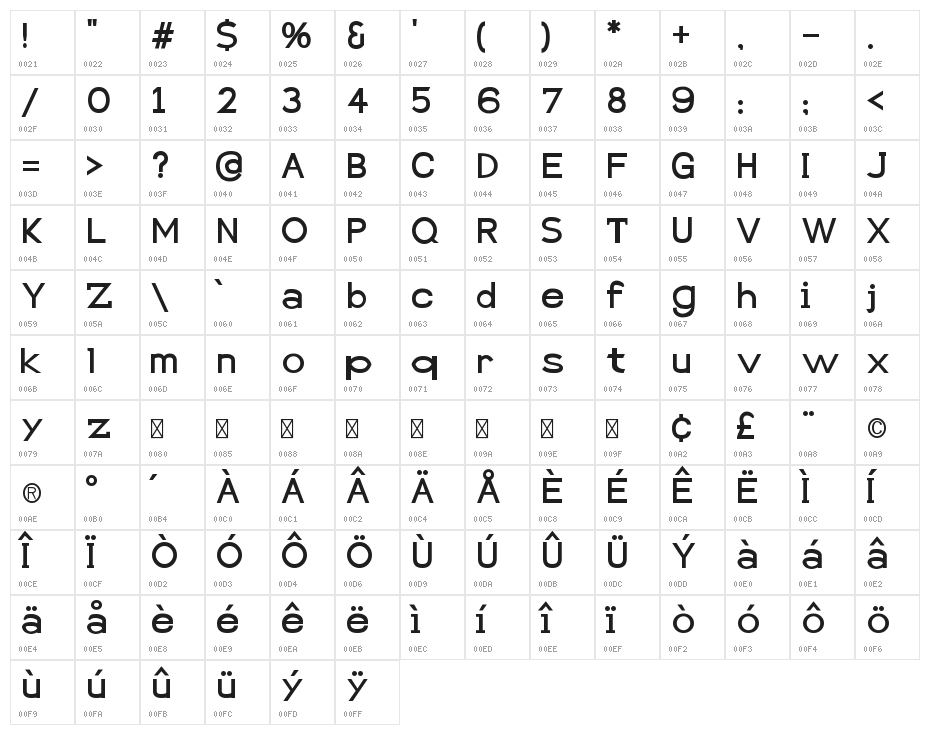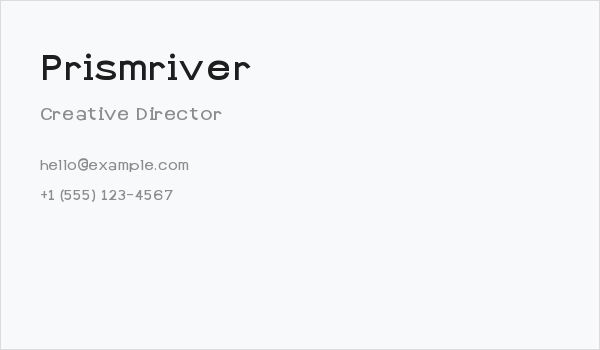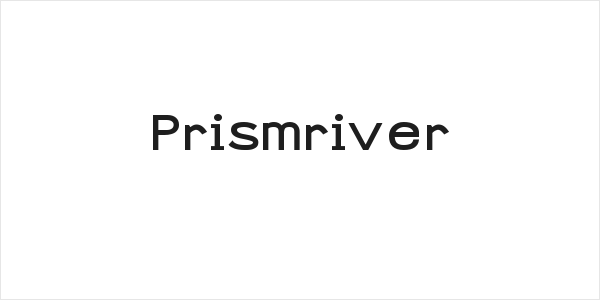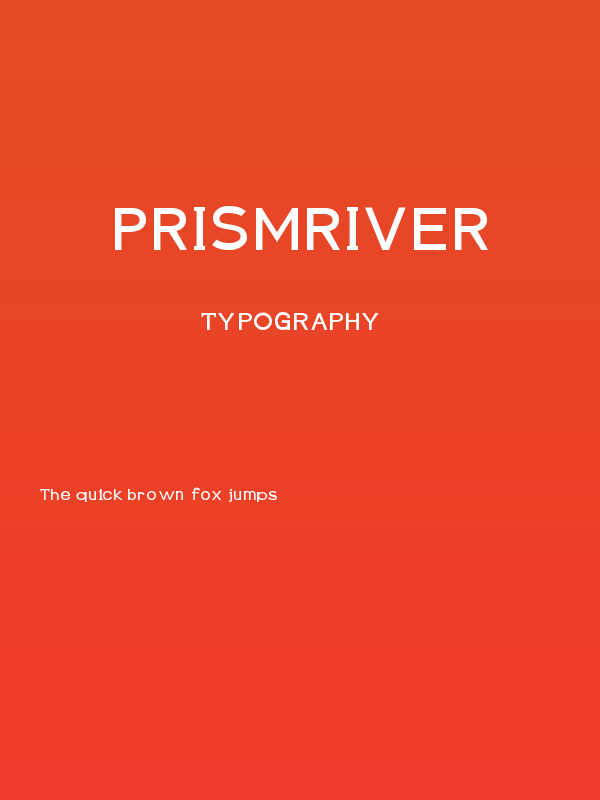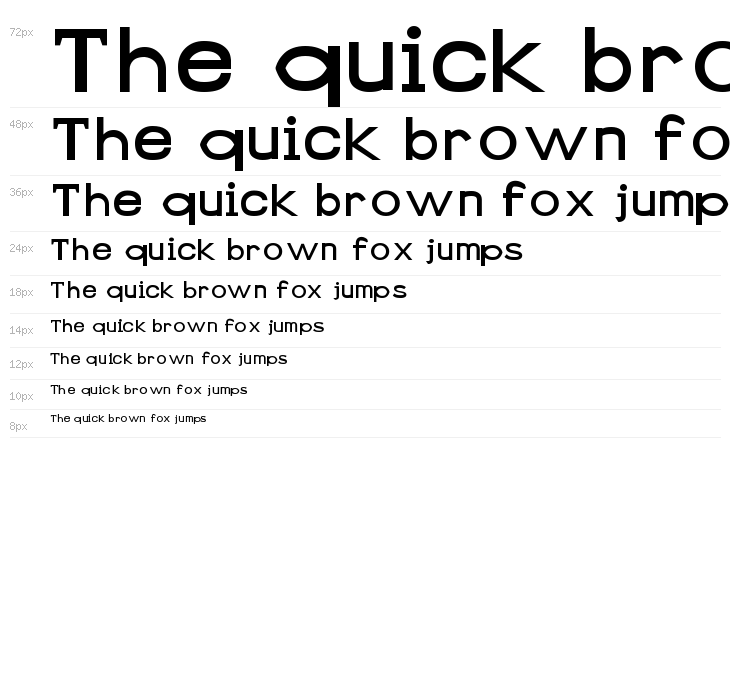
Prismriver Font
Prismriver Description
This font presents a clean and modern aesthetic with a geometric sans-serif style. The characters are well-defined with a uniform stroke width, giving it a balanced and harmonious appearance. The uppercase letters are bold and assertive, while the lowercase letters maintain a friendly and approachable look. The numerals are clear and easy to read, making them suitable for various applications. The special characters are distinct and complement the overall design. This font is versatile, suitable for both digital and print media, and can be used in a variety of contexts from branding to editorial design.